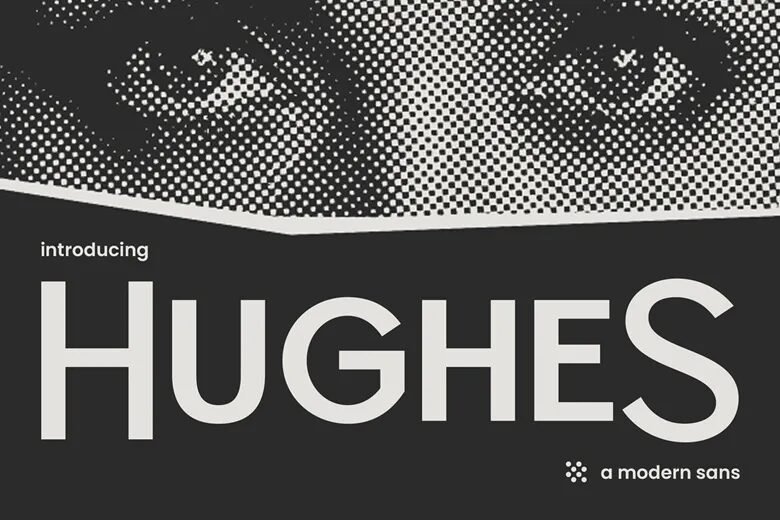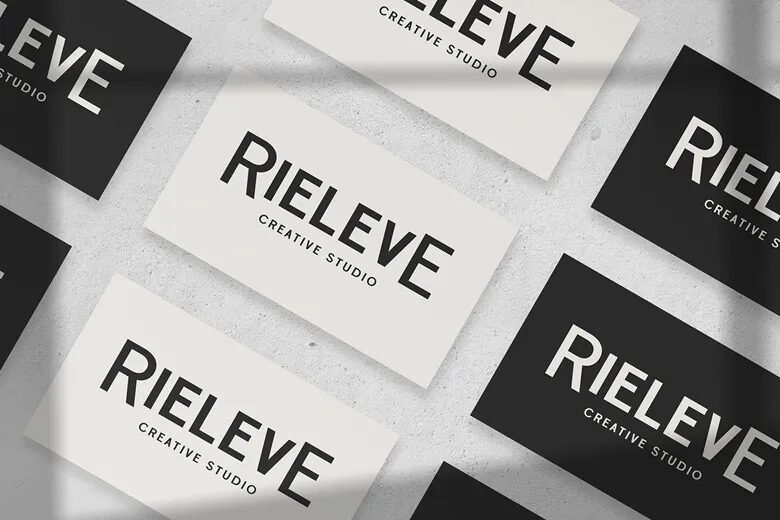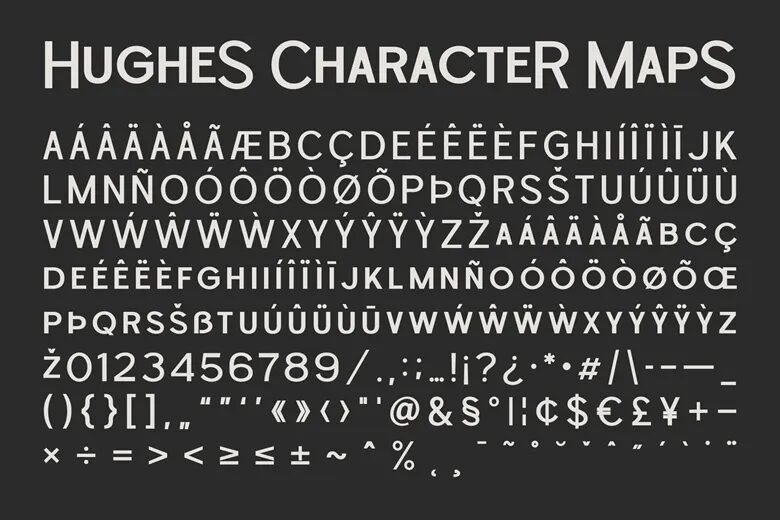
Hughes is a modern, elegant and simple font, best used as a display for headings, logos, branding, magazines, product packaging and invitations. With its angular features and solid build it is flexible enough to be used in branding, editorial design, product packaging and digital design a lift.
Hughes Font Sans Serif Font